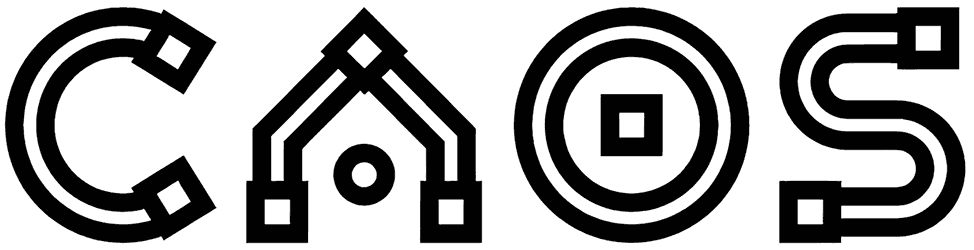
Caos Font
Caos is a font made for people who love to craft and build different structures using magnetic rods. This font, which supports uppercase letters and numbers, has an outline nature, which is perfect for adding interest to greeting cards, children’s products, animated posters, and any other art project.
The interesting and square connections of this mechanical font are like a gentle breeze that gives freshness and dreaminess to your handmade creations.